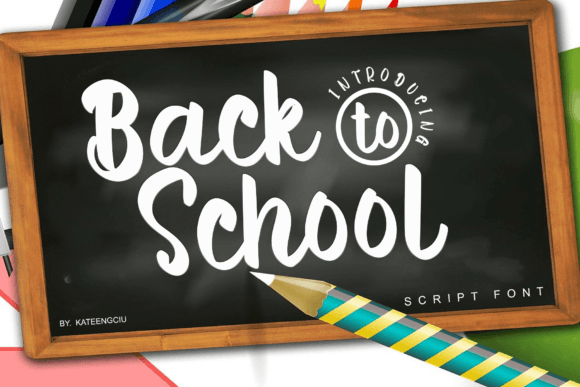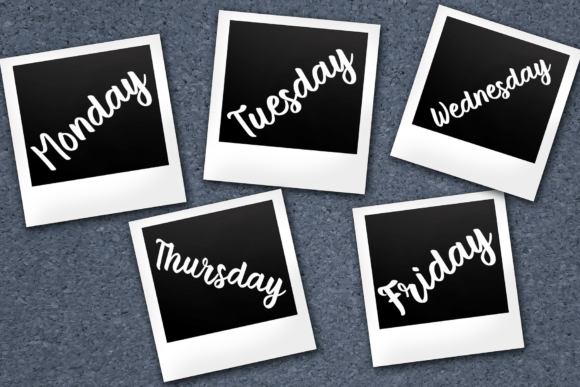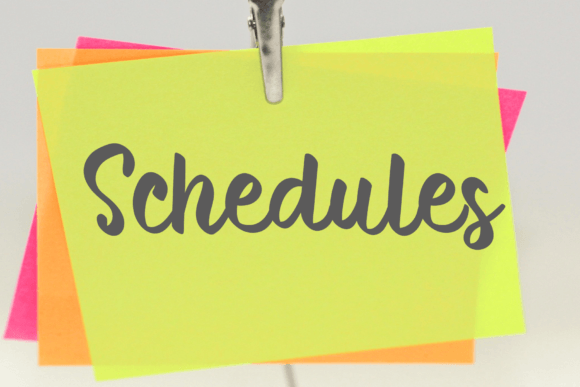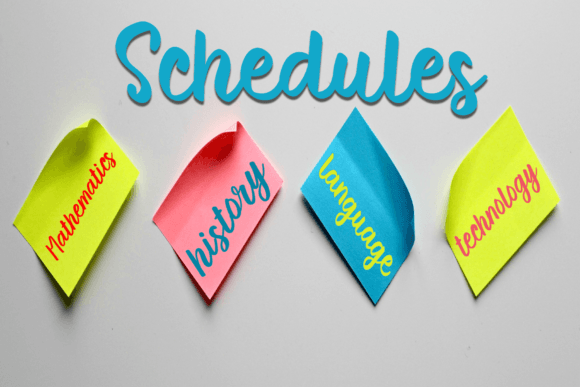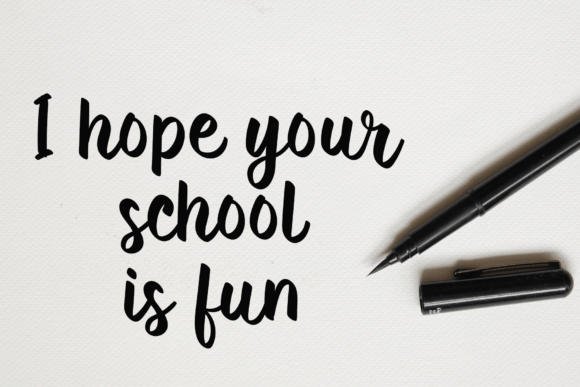
Back to School Font
About Back to School Font
“Back To School” exudes a playfully handmade charm and delivers an incredibly playful handwritten font. This display font is crafted to infuse a special, playful touch into any design idea you can envision. Masterfully designed, “Back To School” has the potential to become a true favorite, elevating each of your creative ideas to the highest level.
The playfully handmade aesthetic of “Back To School” makes it a delightful addition to your design toolkit. Its unique charm adds character to any project, creating a visual language that is both whimsical and inviting. Whether you’re working on posters, banners, or any other creative endeavor, this font brings a sense of playfulness that captivates the audience.
Imagine the impact of “Back To School” on your designs—it goes beyond being a font; it becomes a key element that injects energy and creativity into your projects. Its playful handwritten style sets the stage for designs that are not only visually appealing but also evoke a sense of lightheartedness.
As you explore the possibilities with “Back To School,” consider the diverse range of applications it can enhance. From educational materials to promotional items, this font becomes a playful companion, turning every project into a canvas for imaginative expression.
Incorporate “Back To School” into your designs, and experience how its playfully handmade nature transforms your creative ideas. Let this font be the playful touch that adds a layer of joy and creativity to your projects, making them stand out and resonate with a sense of youthful exuberance.